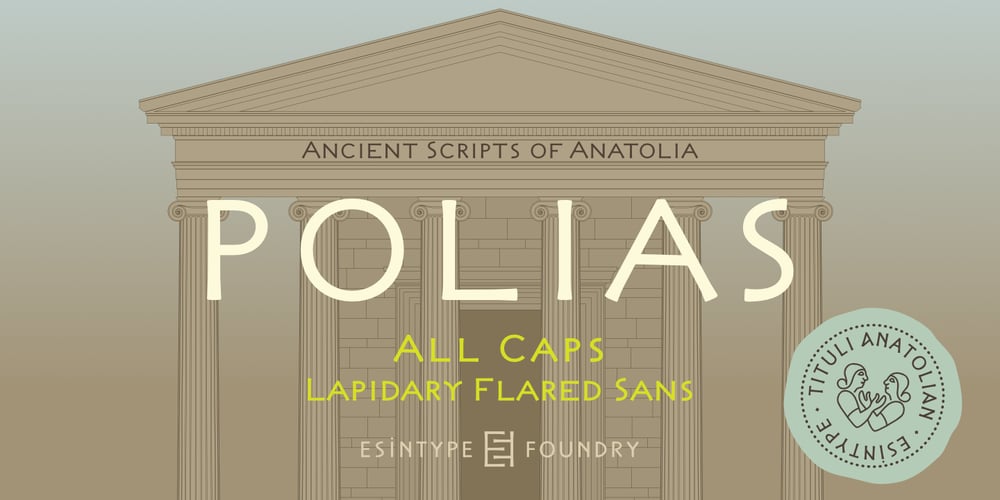
Polias Font Family was designed by Ali Riza Esin and published by Esintype. Polias contains 8 styles and family package options. Polias is an all-caps uniwidth typeface inspired by an ancient inscription carved on a monoblock stone in hybrid characters — between no-contrast linear sans to low-contrast flared serif. The inspiring inscription is the dedication by Alexander the Great, discovered in the Temple of Athena Polias in the ancient Ionian city of Priene. Stanley Morison mentioned this inscription in one of his lectures:“The distinctive feature of this inscription consists of a consistent thickening towards the ends of perpendiculars and horizontals.” … “We have not the right to say that the serif was invented for Alexander the Great’s inscription, only that this is its first datable appearance.”The letter proportions are almost identical to the original, but the stroke features have been reinterpreted and characterized. Serif-like nodes at the end of the strokes are subtle extensions that serve to accentuate rather than break its monoline elegance. With an analogy, they are not flowers, but like blooming buds. Polias is a flared sans typeface which is closer to sans-serif forms on the spectrum between sans and serif.It’s especially light looking by design to convey rather thin and white typographic color of its original monumental look. It comes in eight weights and a variable font, scaled from Thin to Bold. It is multiplexed, so the weights do not affect text lengths. Light weights are closely based on the actual carving of the inscription. Thicker weights can be used on smaller typesettings to compensate for the weight difference of larger letters’ strokes, and to keeping the monoline appearance of the entire text block intact. This method can be used for any purpose, such as setting a hierarchy between the lines or to justify their lengths.Some of the original letterforms have been preserved and stylistic alternatives such as Ionic four-bar Sigma, dotted Theta, palm Y are provided as open type feature. Some of the other ancient forms, such as the three-bar Sigma (S), the pointed U, were also added for both the Greek and Latin scripts.Polias is preferable for big type settings such as logos and headlines as a modern representation of perennial classical forms. Its a fine fit for product branding, movie posters, book covers, packaging materials, and more, which require an epic look to attracting attention with a distinctive elegance. Polias can be considered for distinctiveness wherever Roman Capitals work.As a noun, Polias is one of the epithets of Athena / Minerva, and in this case referring to her role as the protector of the city of Priene. Polias is one of the seven typeface designs in Esintype’s ancient scripts of Anatolia project, Tituli Anatolian series.